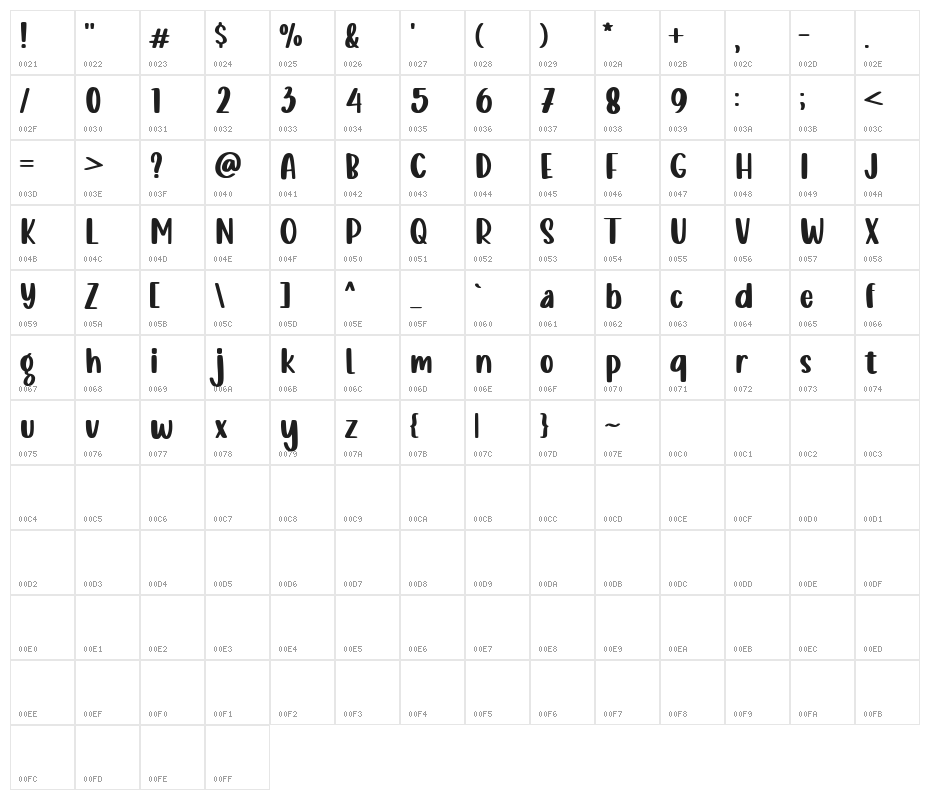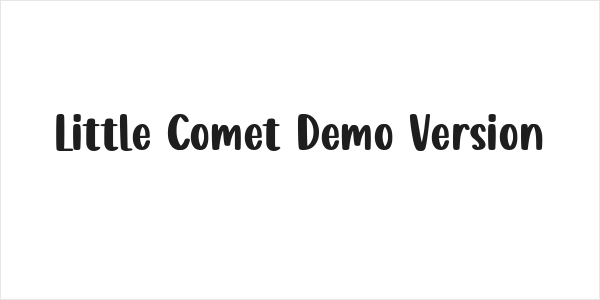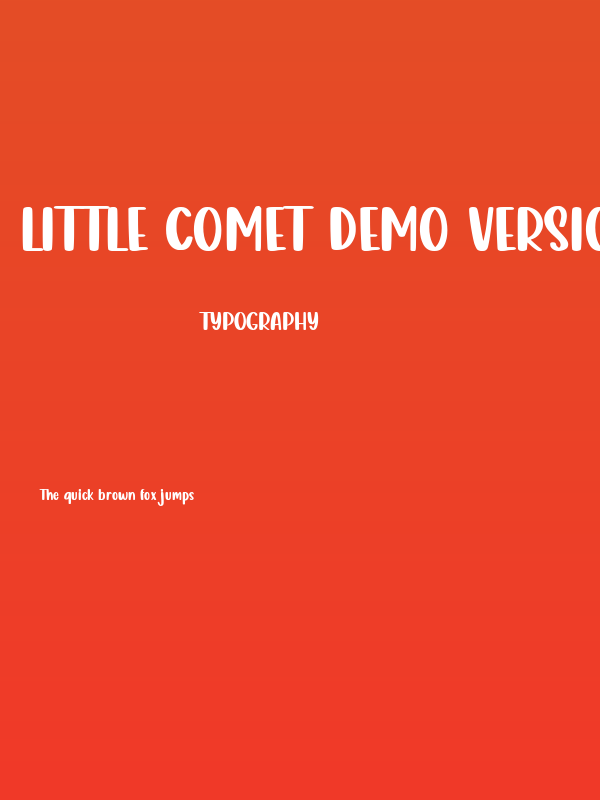
Little Comet Demo Version Font
Little Comet Demo Version Description
This playful and bold font features a handwritten style with a whimsical touch. The characters are rounded and slightly irregular, giving it a friendly and approachable appearance. The uppercase letters are tall and bold, while the lowercase letters maintain a consistent flow with a slight slant, adding to its casual charm. The numbers and special characters are designed to match the overall playful aesthetic, making it suitable for creative and informal projects. The font's thick strokes and rounded edges contribute to its bold presence, making it stand out in any design.
| Proposed Projects | Ideal for children's books, playful branding, greeting cards, and social media graphics. |